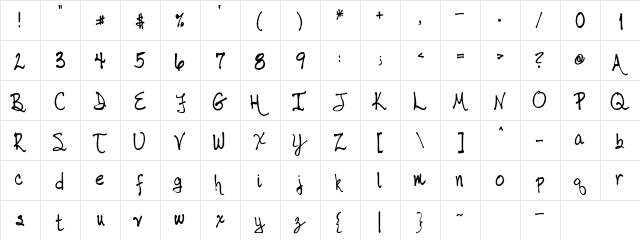
tabor handwriting Regular Font Preview
tabor handwriting Regular
tabor handwriting Regular Font Details
Design Context for tabor handwriting Typeface
tabor handwriting brings a calligraphic fluidity to the page — its connecting strokes and expressive curves give it an unmistakably human quality.
Font Pairing: Combine tabor handwriting with a simple geometric sans for maximum contrast — the tension between flowing curves and clean structure is a classic typographic pairing.
Pro Tip: Use tabor handwriting for short runs of text — names, titles, or taglines. Extended body copy in script faces tires the eye quickly.